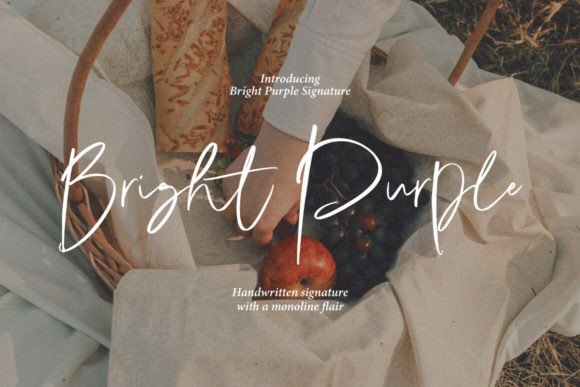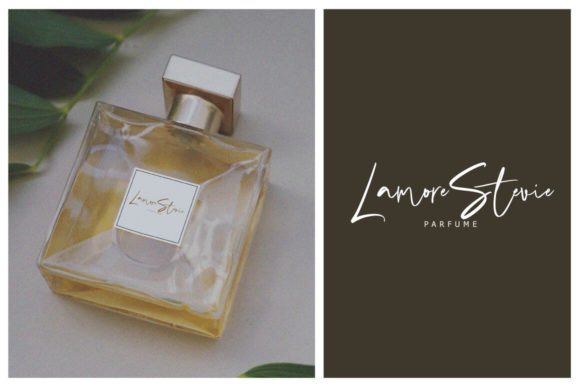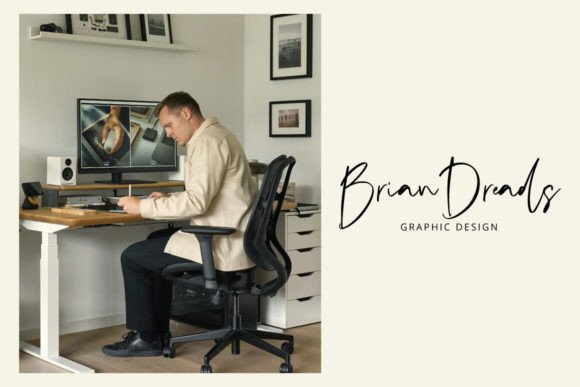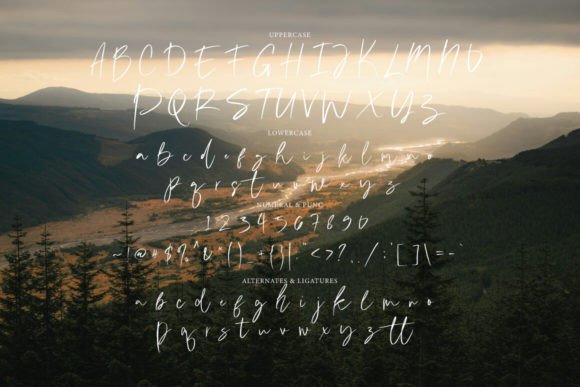
Bright Purple Font
About the Bright Purple Font
The Bright Purple Font offers a perfect balance of form and function for your design needs. Bright Purple is a stylish font with a sleek, single-line design. Its smooth, elegant curves make it stand out and give a modern touch to any text.
Bright Purple excels in headline applications, short impactful statements, and branding elements where a modern and elegant feel is desired. It works particularly well for logos, short taglines, and packaging design for high-end products. However, its sleek curves and single-line design make it less suitable for body copy or extended text blocks; readability suffers at smaller sizes.
This font’s personality is sophisticated and modern, lending itself to brands projecting luxury or a minimalist aesthetic. For optimal pairings, consider a clean sans-serif like Lato or Open Sans for body text to complement its curves, or a subtle serif such as Merriweather for a more classic counterpoint.
Using Bright Purple with a playful script font like Great Vibes can create a stylish contrast for specific elements needing a touch of whimsy. Avoid pairing it with other highly decorative fonts, which would clash with its sleek simplicity and dilute its impact.
Bright Purple Font Usage Examples
Bright Purple Font Example